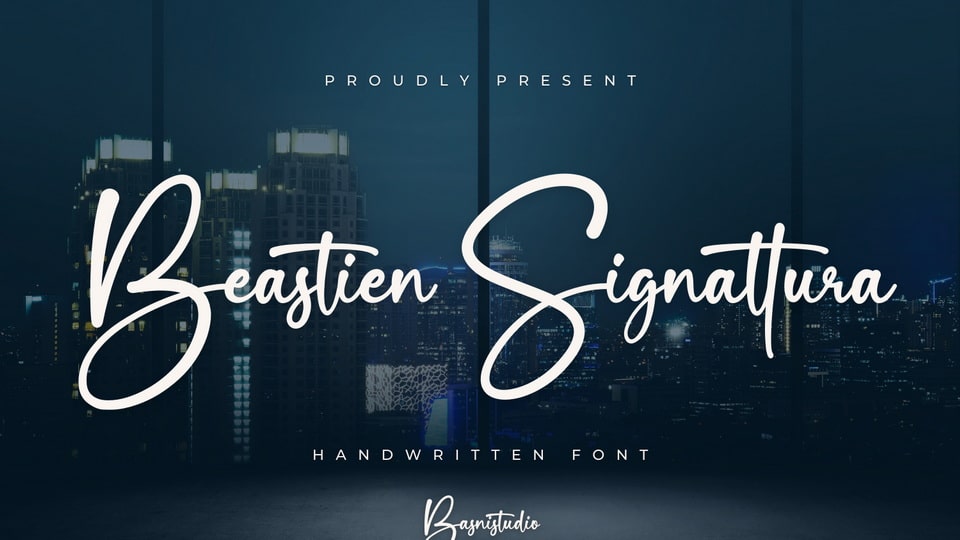
Download Beastien Signattura font, a handwritten typeface that adds a elegant, versatile touch to everything from branding and social media to invitations and packaging.